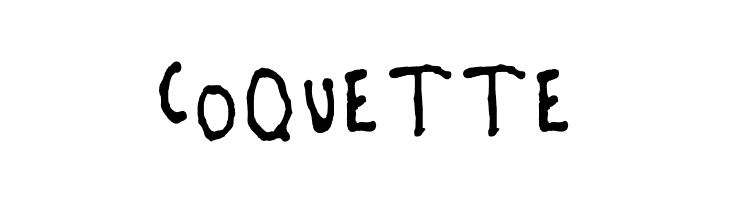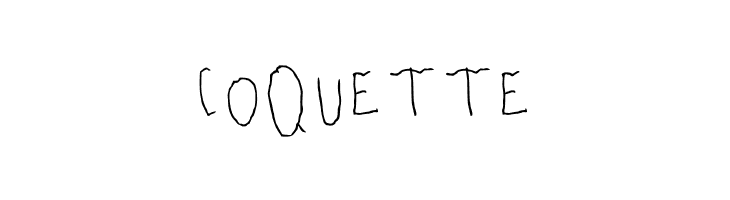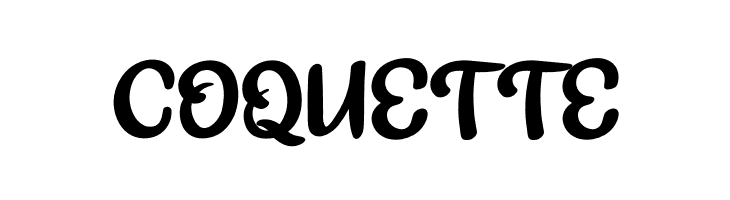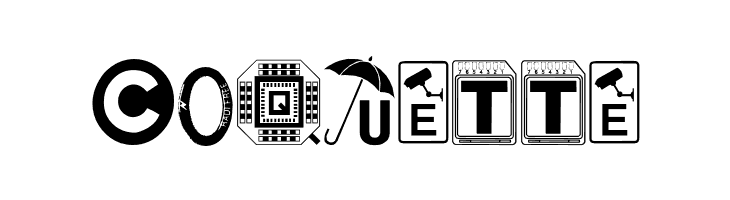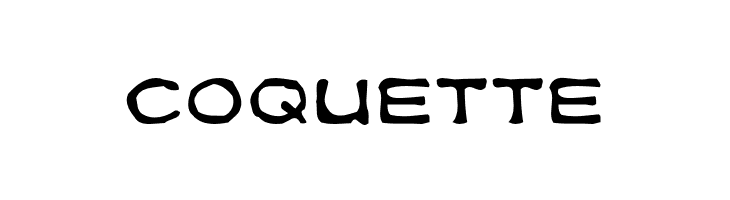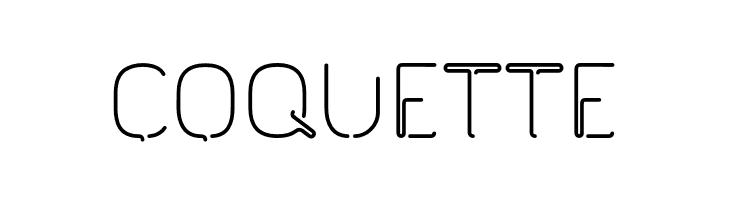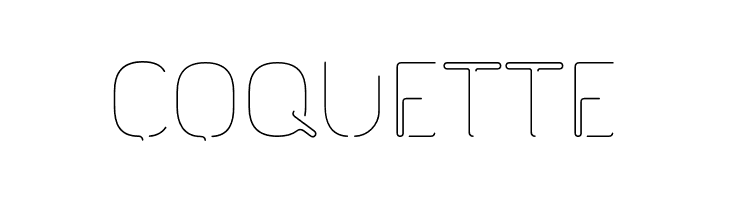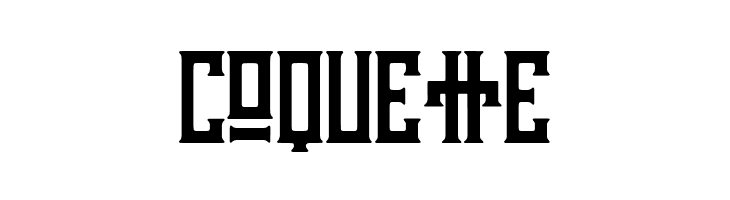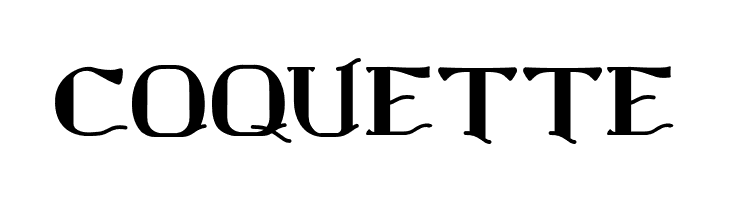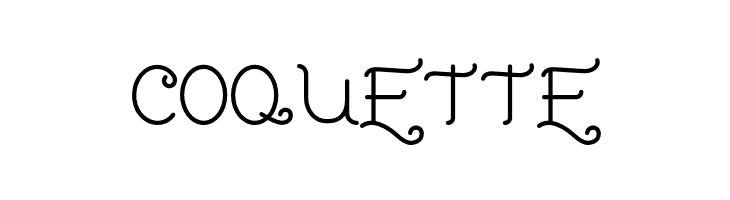
• Hodor Regular
A bold, Gothic-inspired font with angular lines and high contrast, perfect for dramatic designs.
• Insecurity
A chaotic and eclectic font with unique, symbol-rich characters.
• Kabel
A geometric, modern font with clean lines and a minimalist aesthetic.
• Kabel-Light
A geometric and minimalist font with clean lines and a modern aesthetic.
• KleeCapScript
A playful, casual script font with fluid, connected strokes and a handwritten feel.
• Kristina Bold Regular
A bold, hand-drawn font with playful, irregular characters.
• Kristina Fine Regular
A hand-drawn, whimsical font with thin, irregular strokes.
• Kuebeg Personal Use
A bold, playful script font with smooth, flowing curves and a handwritten style.
• Landon Regular
A bold, high-contrast serif font with a modern vintage flair.
• LittleEdellweiss
A whimsical and playful font with curly, decorative elements.